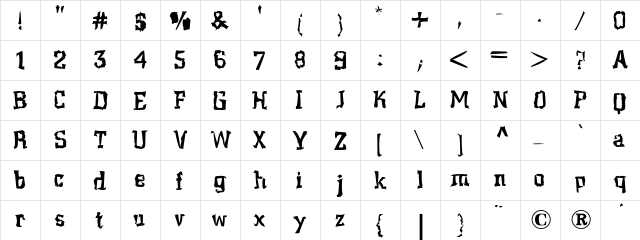
Martar Regular Font Preview
Martar Regular
Martar Regular Font Details
Design Context for Martar Typeface
Martar is a composed and adaptable typeface that performs quietly and consistently across a wide range of design contexts.